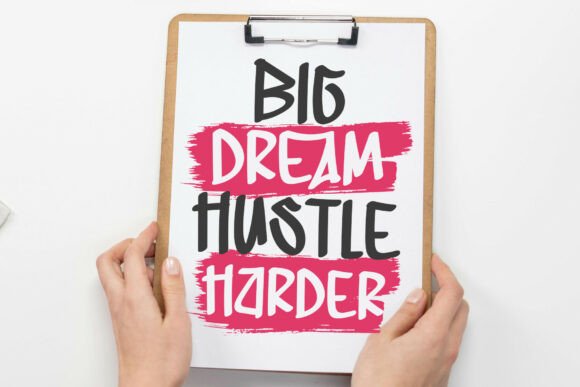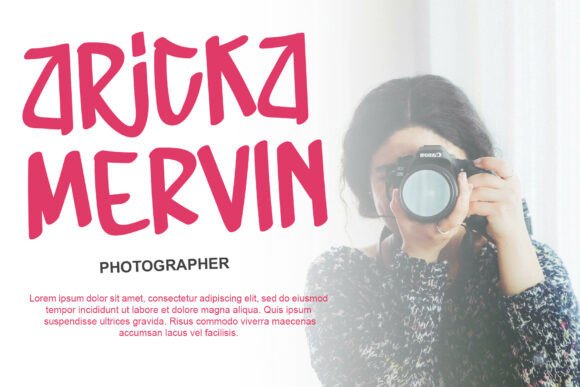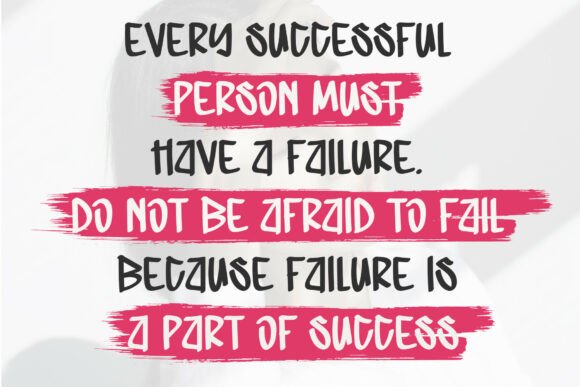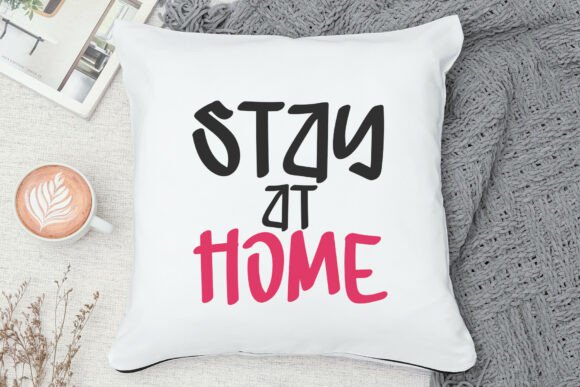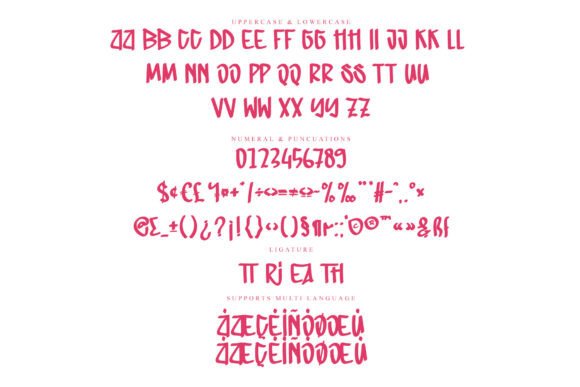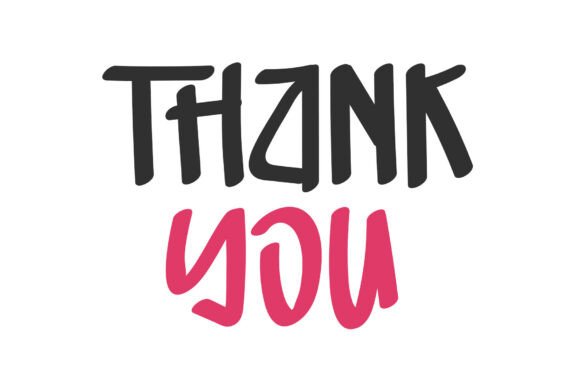
Brick Heart Font: Add a Touch of Cozy Creativity to Your Work
Are you looking for a font that can bring a sense of warmth and personality to your designs? Look no further than the Brick Heart font. This creative display font is perfect for creators who want to add a touch of cozy, everyday creativity to their work. With its casual, confident stroke of a felt-tip marker, the Brick Heart font offers a modern and endearingly imperfect look that is sure to capture the attention of your audience.
The Perfect Font for Storytellers and Personal Expression
The Brick Heart font is a dream for creators focused on storytelling and personal expression. Its unique and charming design makes it perfect for digital planners, “quote of the day” graphics, and cozy café menus. The font’s excellent legibility and friendly weight also make it suitable for both titles and short blocks of text, giving you the flexibility to use it in a variety of design projects.
The Brick Heart font is incredibly versatile and can be used in a wide range of design projects. Here are a few ideas to get you started:
- DIY-style packaging: Add a personal touch to your packaging with the Brick Heart font. Its charming design is sure to make your products stand out.
- YouTube thumbnails: Create eye-catching thumbnails that showcase your personality and style with the Brick Heart font.
- Food photography: Add a touch of warmth and coziness to your food photography with the Brick Heart font. It pairs beautifully with paper textures, hand-drawn illustrations, and earthy color tones.
Font Features and Encoding
The Brick Heart font is PUA-encoded, allowing effortless access to all glyphs, swashes, and alternate characters. This means you can easily access a wide range of design elements, including:
- Glyphs: A variety of glyphs to help you add personality to your designs.
- Swashes: Elegant swashes to add a touch of sophistication to your designs.
- Alternate characters: A range of alternate characters to help you create unique and creative designs.
Why Choose the Brick Heart Font?
So why choose the Brick Heart font for your design projects? Here are just a few reasons:
- Unique and charming design: The Brick Heart font has a unique and charming design that is sure to capture the attention of your audience.
- Excellent legibility: The font’s excellent legibility makes it perfect for both titles and short blocks of text.
- Versatile: The Brick Heart font is incredibly versatile and can be used in a wide range of design projects.
- PUA-encoded: The font’s PUA encoding makes it easy to access a wide range of design elements.
If you’re looking for a font that can bring a sense of cozy, everyday creativity to your work, look no further than the Brick Heart font. With its unique and charming design, excellent legibility, and versatility, it’s the perfect choice for creators focused on storytelling and personal expression. So why wait? Download the Brick Heart font today and start adding a touch of warmth and personality to your designs.
Tips for Using the Brick Heart Font
Here are a few tips for getting the most out of the Brick Heart font:
- Pair it with paper textures: The Brick Heart font pairs beautifully with paper textures, adding a touch of warmth and coziness to your designs.
- Use it with hand-drawn illustrations: The font’s charming design pairs perfectly with hand-drawn illustrations, creating a unique and creative look.
- Experiment with earthy color tones: The Brick Heart font looks great with earthy color tones, adding a touch of natural warmth to your designs.